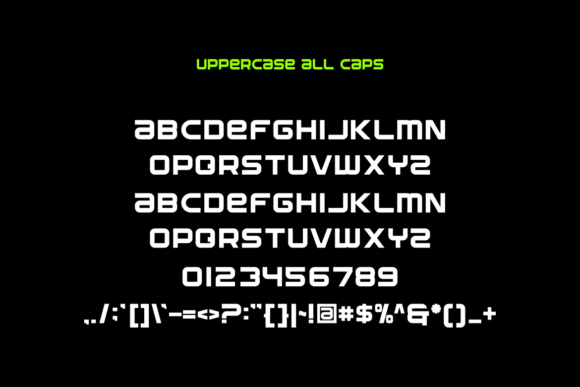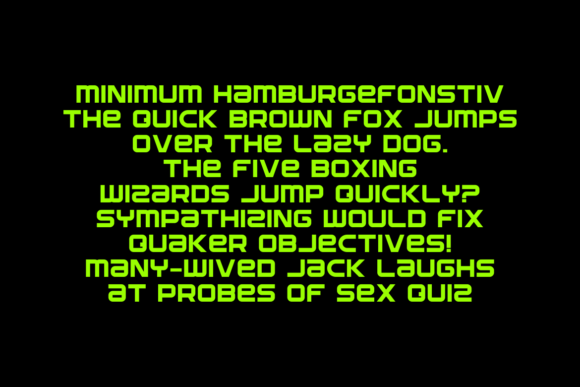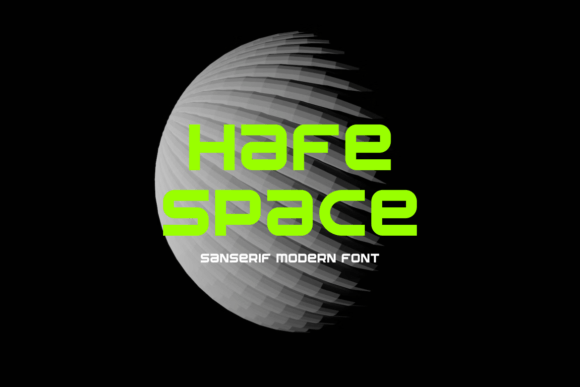
Introduction to Hafespace Font
HafeSpace modern is a bold and distinctive sans serif font, perfect for branding projects such as logos, sports themes, and more.
It stands out across various applications .
Key Features of Hafespace Font
Why Choose Hafespace Font?